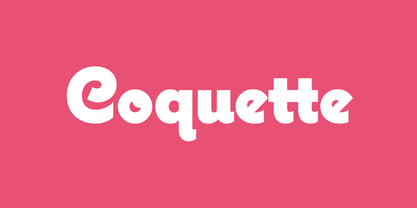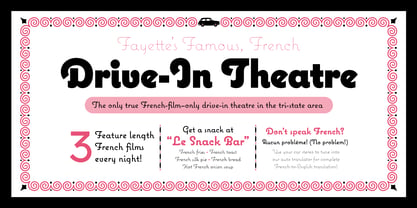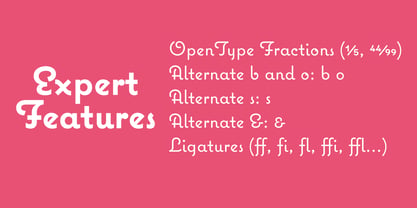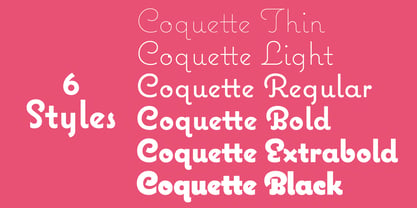
Coquette™
by Mark Simonson Studio
The Coquette Font Family was designed by Mark Simonson and published by Mark Simonson Studio. Coquette contains 12 styles. More about this family
Coquette is a unconnected script combining elements of the traditional French script and geometric sans serif styles. The result is at once novel and familiar, evoking both vernacular and commercial lettering of the mid-20th Century without being derived from any specific existing source. First released in 2001 in three styles (Light, Regular, and Bold), three new styles were added in 2017 (Thin, ExtraBold, and Black) as well as several new features: Alternate characters, OpenType fractions, and more.
Designers: Mark Simonson
Foundry: Mark Simonson Studio